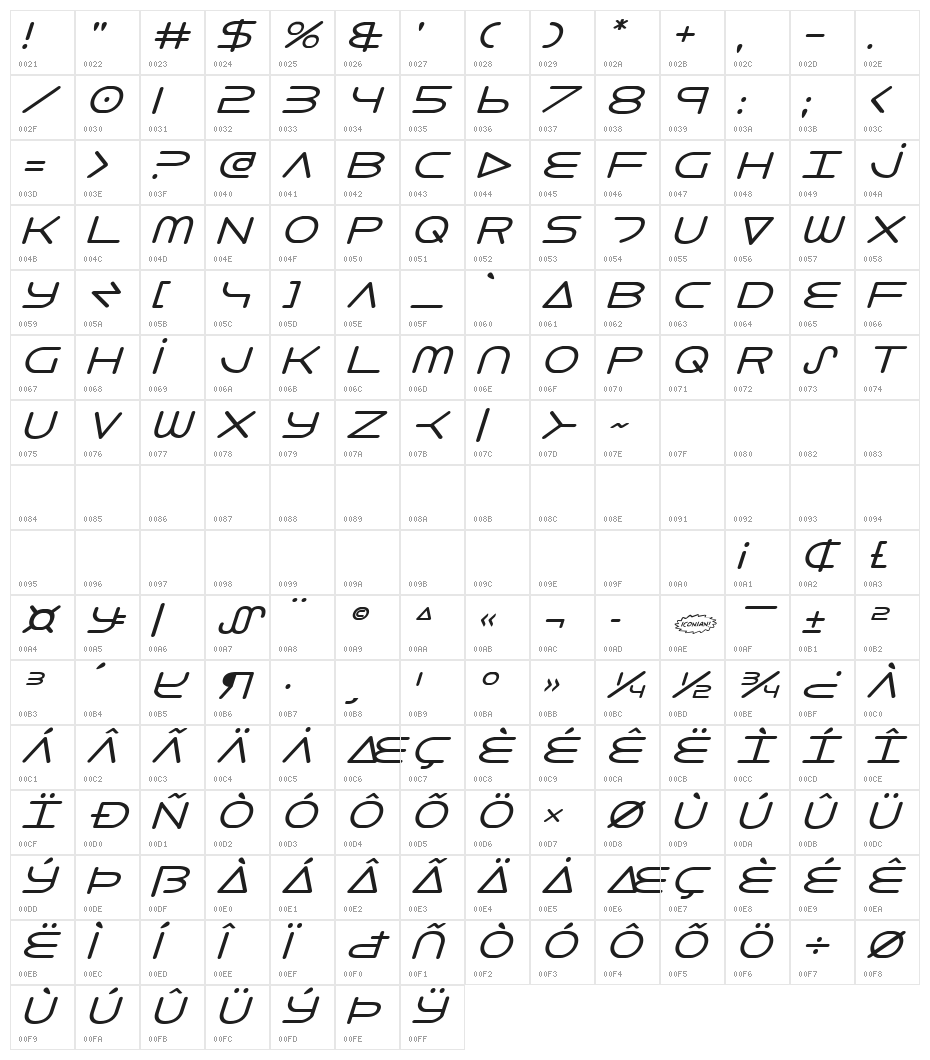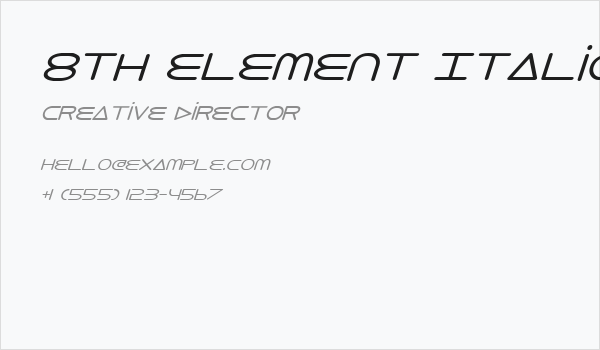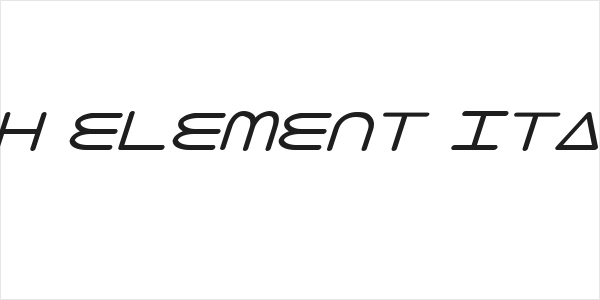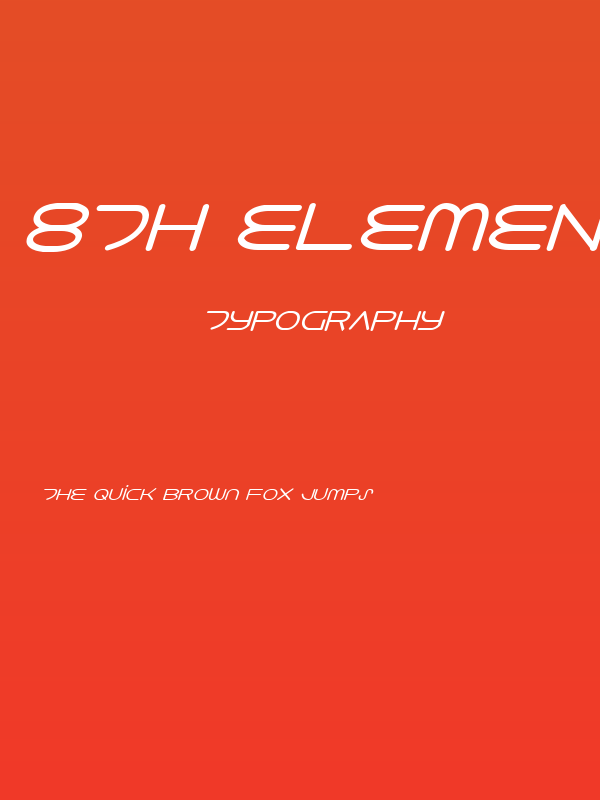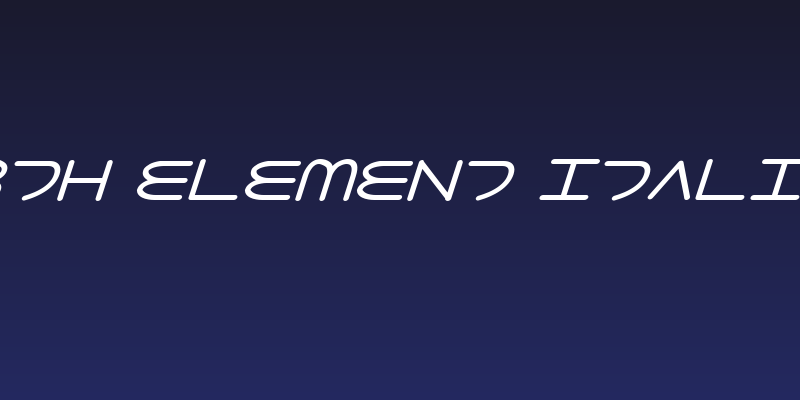
8th Element Italic Font
8th Element Italic Description
This font features a futuristic and sleek design with a distinct italic slant, giving it a dynamic and forward-moving appearance. The characters are crafted with a geometric precision, incorporating sharp angles and smooth curves that create a sense of motion and modernity. The uppercase and lowercase letters maintain a consistent style, with unique elements such as the triangular shapes in the 'A' and 'V'. The numbers and special characters follow the same aesthetic, ensuring uniformity across all glyphs. This font's design is ideal for projects that require a contemporary and innovative look.
| Proposed Projects | Ideal for tech branding, sci-fi movie titles, modern advertising, and innovative product packaging. |